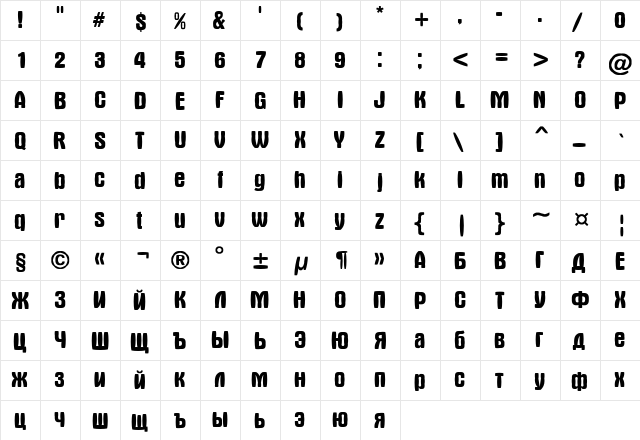
a_AlternaSw Demi
a_AlternaSw offers clean, dependable letterforms without strong stylistic allegiance, making it a practical choice for designers who need flexibility.